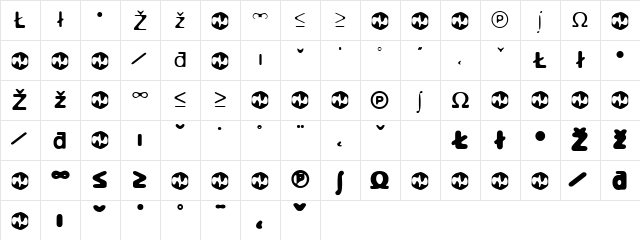
Complete BlurExtra Thin glyph index. Displaying only characters natively supported by BlurExtra Thin font.
BlurExtra is a composed and adaptable typeface that performs quietly and consistently across a wide range of design contexts. Its slender proportions lend an understated elegance to any composition.